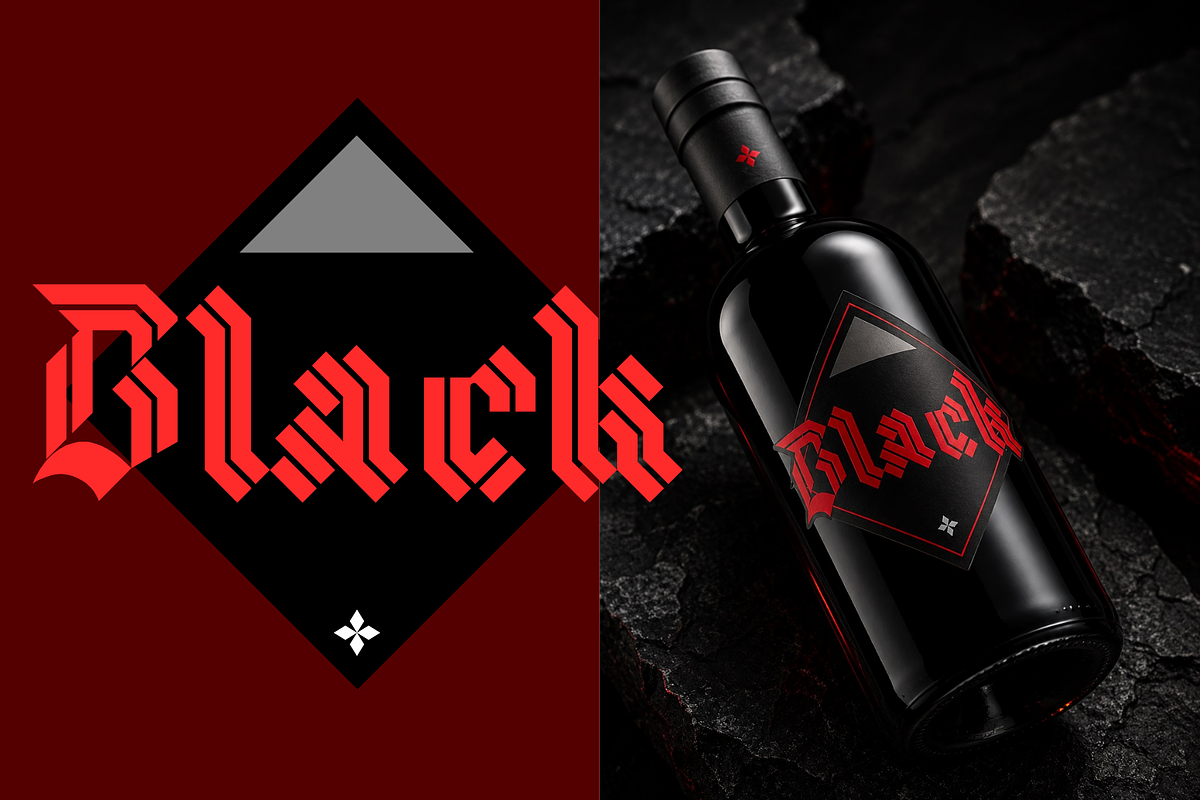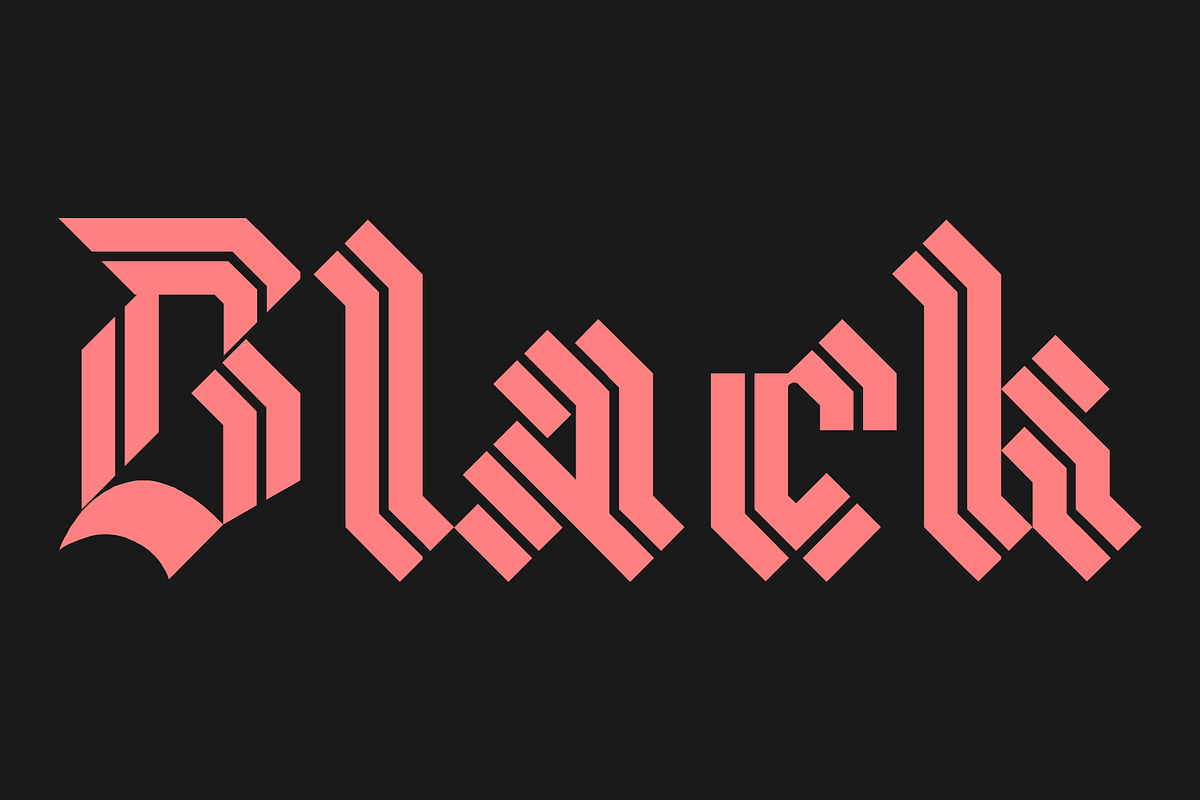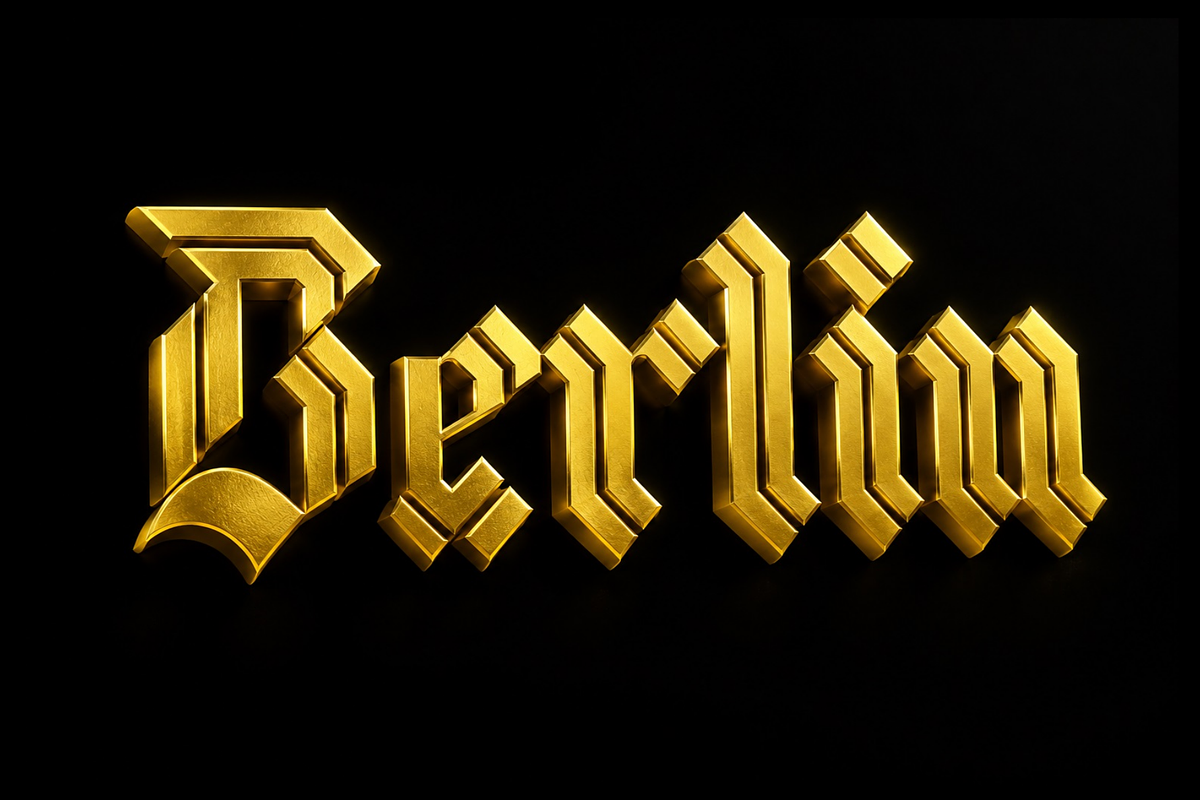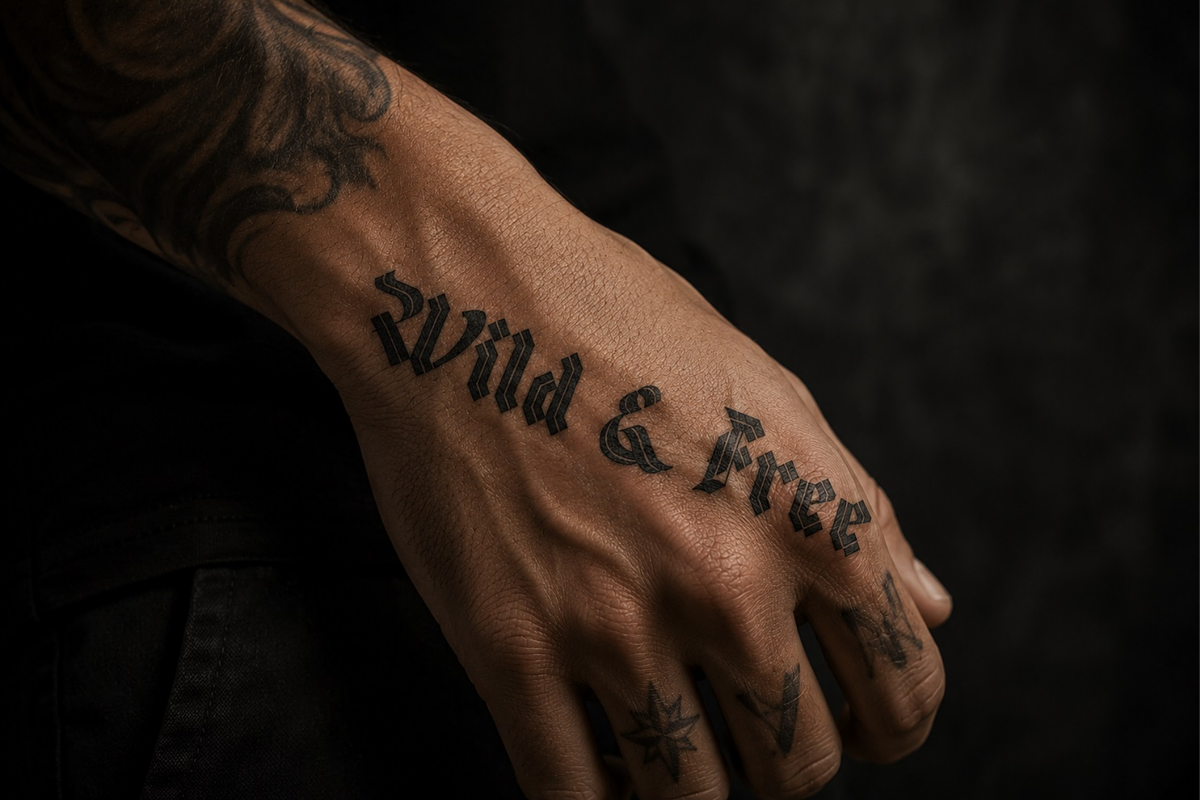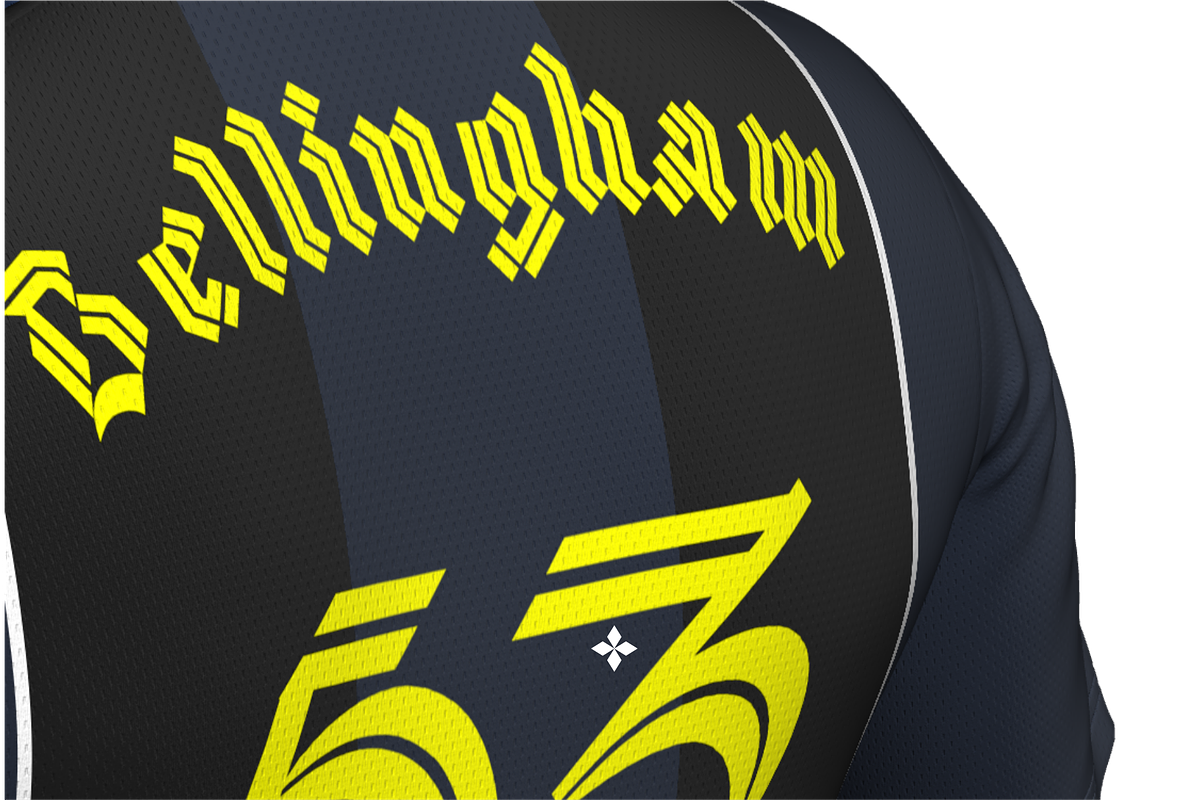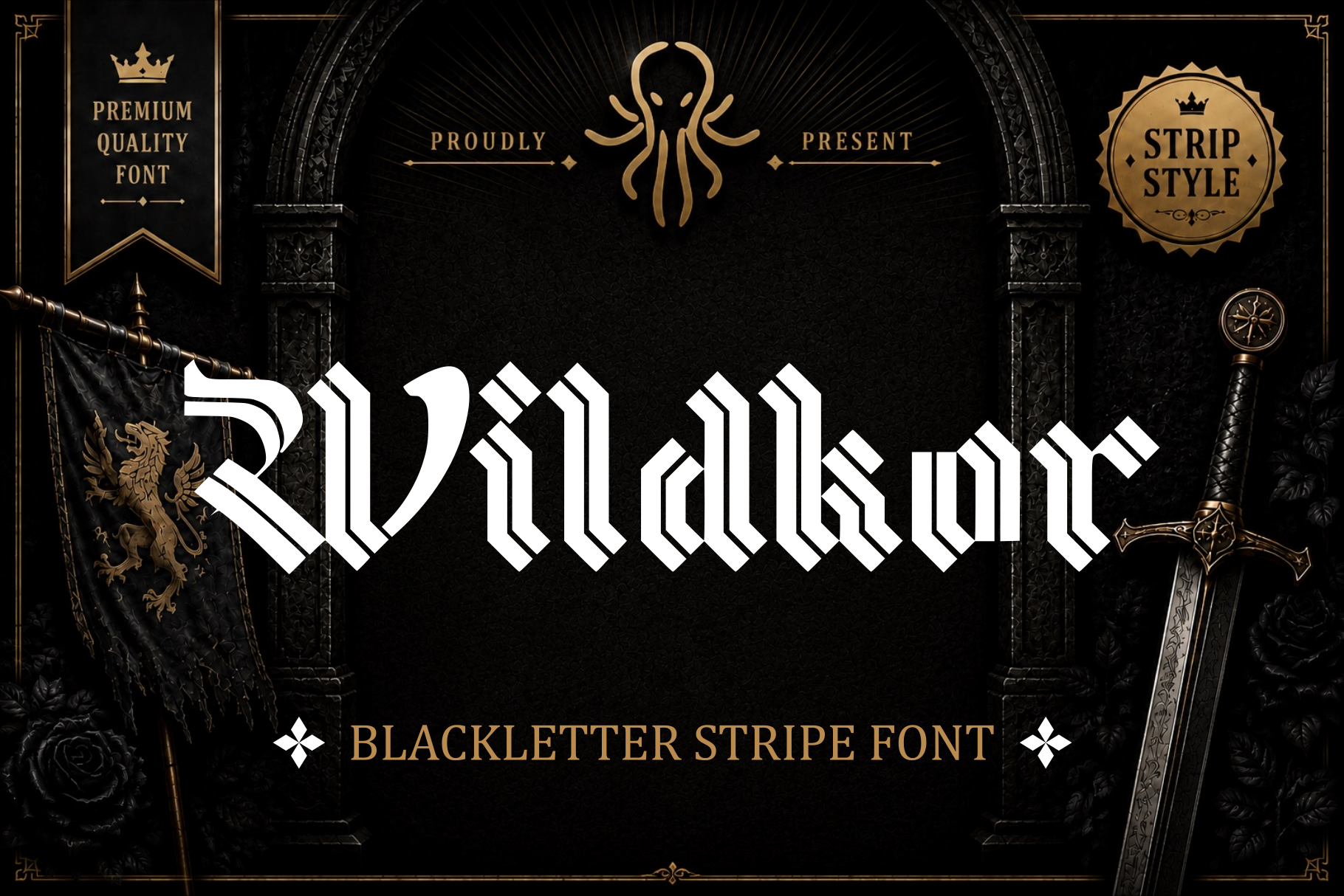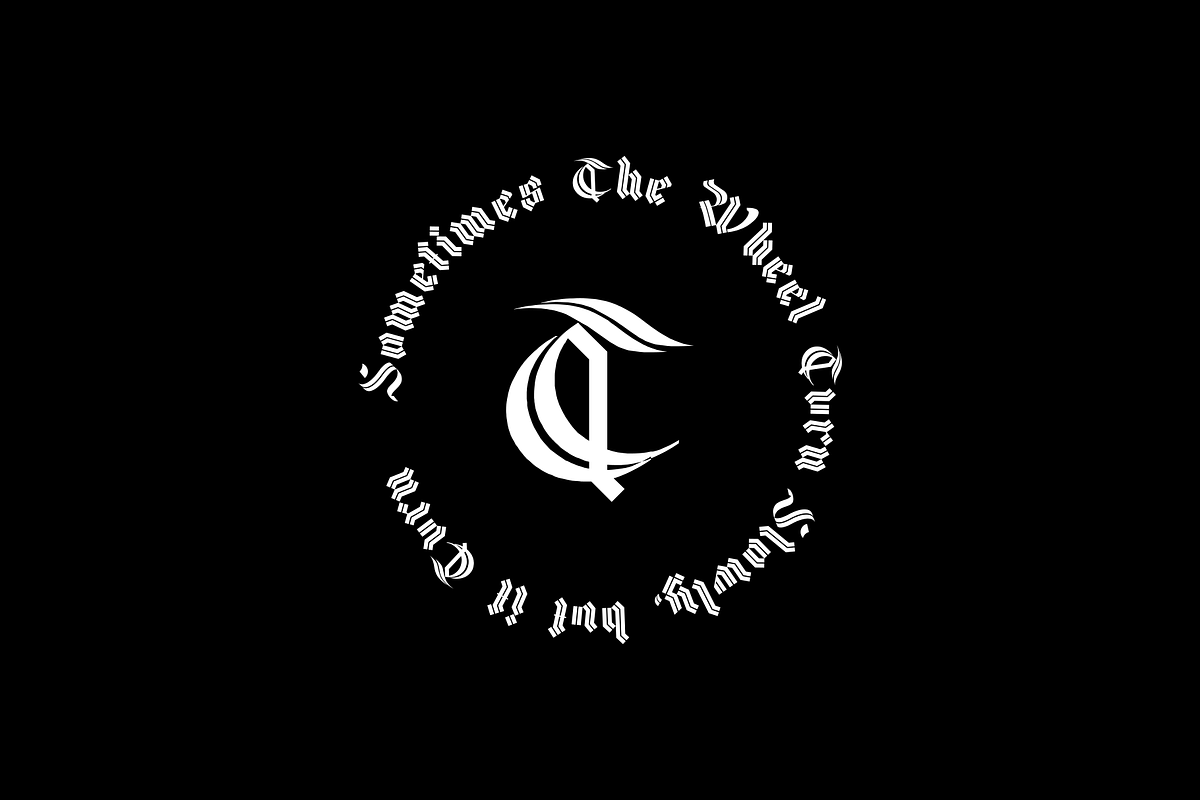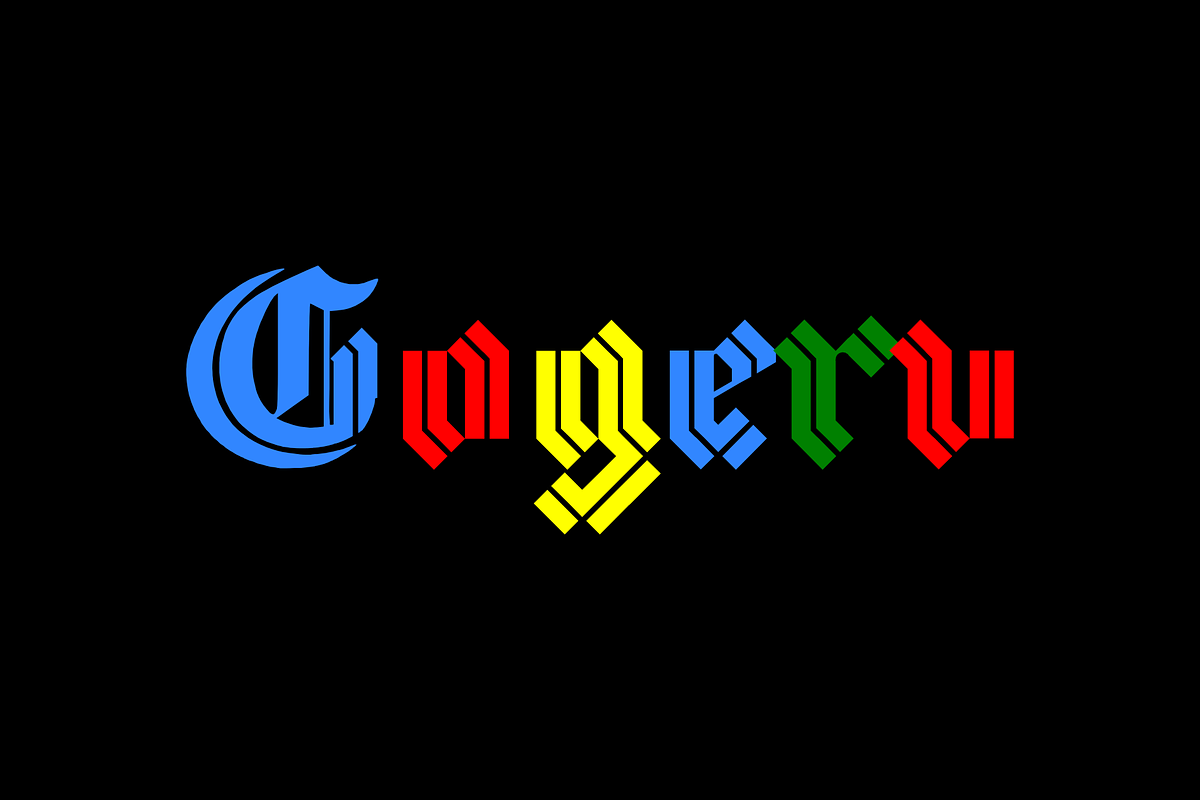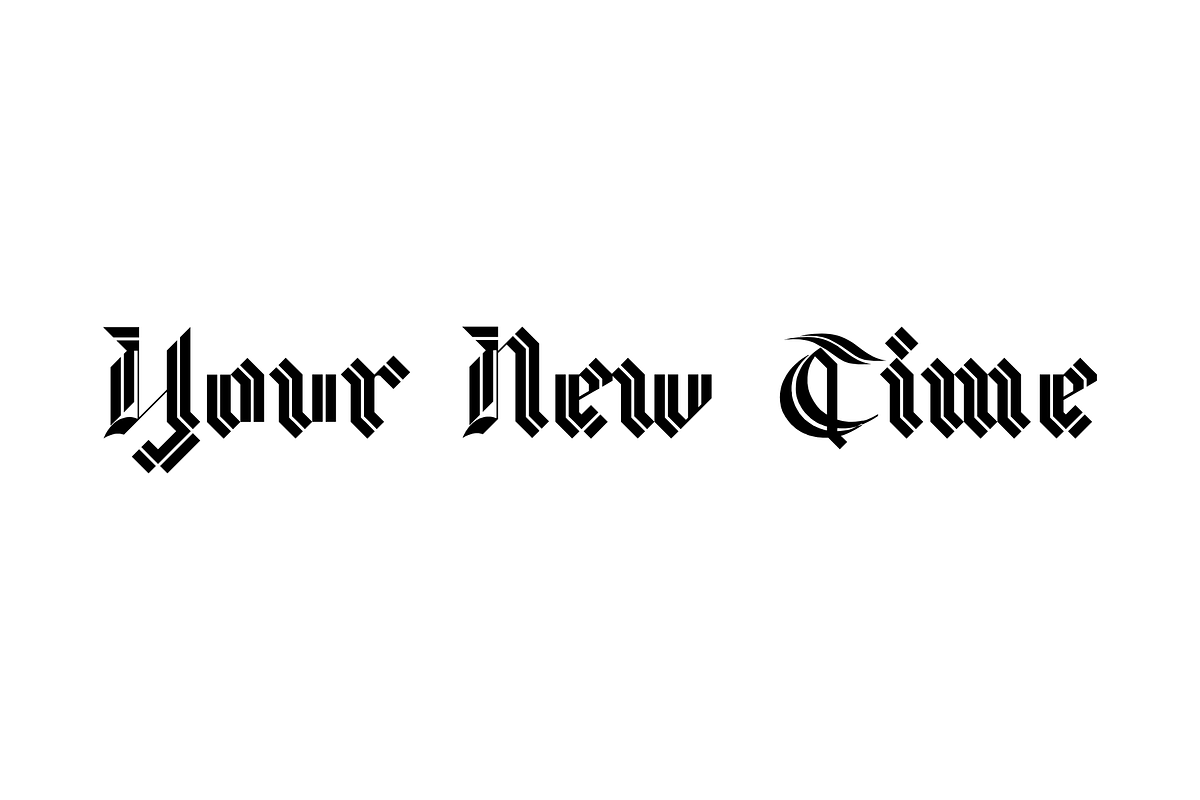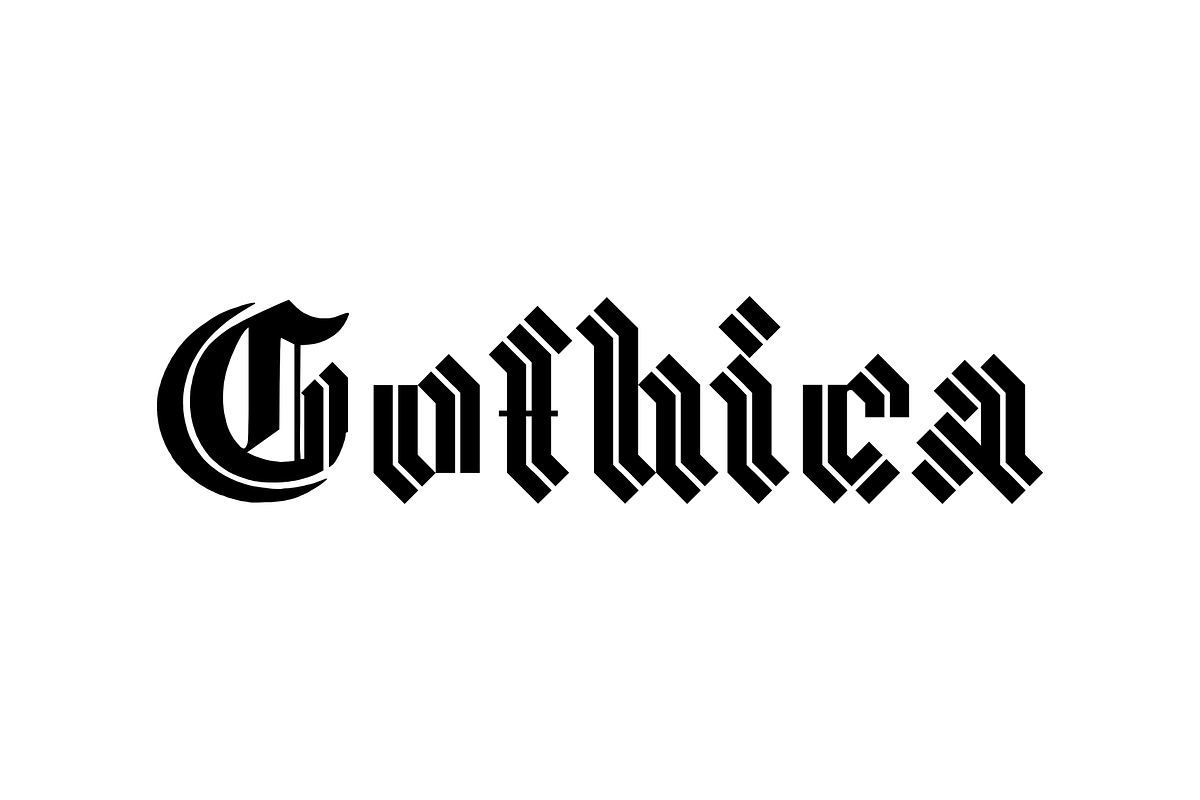
Wildkor - Blackletter Stripe Font
Wildkor – Blackletter Stripe Font
Wildkor is a bold blackletter stripe font that combines the timeless beauty of medieval typography with a clean, modern edge. Inspired by Gothic calligraphy and contemporary geometric forms, Wildkor features sharp angles, strong vertical strokes, and distinctive striped details that create a powerful visual identity. The result is a font that feels both classic and innovative, making it an excellent choice for designers looking to create memorable and impactful typography.
Whether you're working on logos, branding, apparel, streetwear, tattoo designs, album covers, gaming graphics, esports branding, beer labels, whiskey packaging, posters, book covers, music merchandise, invitations, social media graphics, YouTube thumbnails, or luxury packaging, Wildkor delivers an authentic blackletter aesthetic with exceptional readability and style.
Its unique striped construction gives every letter a dynamic and eye-catching appearance while maintaining the traditional spirit of Gothic lettering. This balance makes Wildkor suitable for both vintage-inspired projects and modern creative designs.